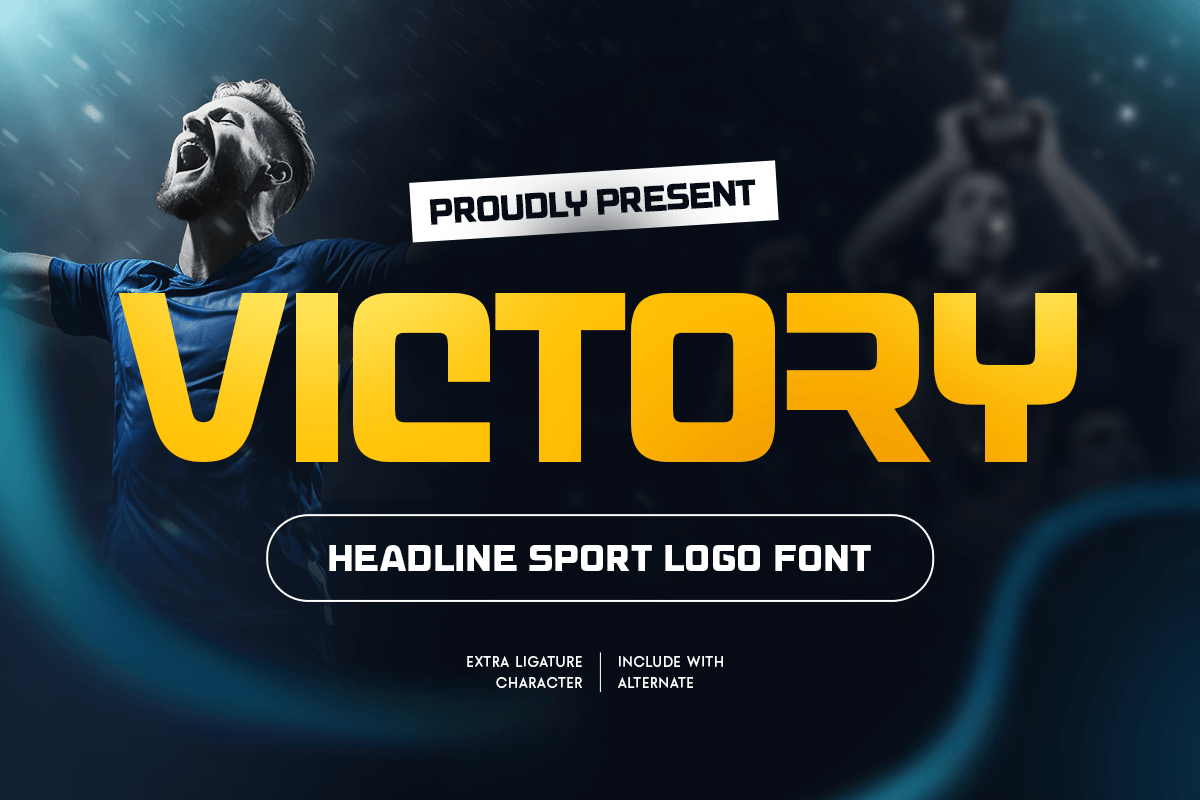
Victory
-Headline Sport Logo Font
Victory - Headline Sport Logo Font
VICTORY is a headline sport logo font built to deliver power, speed, and competitive confidence. With bold letterforms and an athletic presence, this typeface creates a strong visual impact that feels energetic, modern, and ready for the arena. Whether you’re designing for football, basketball, MMA, motorsport, fitness, or esports, VICTORY gives your visuals a championship-ready tone that looks loud, sharp, and unforgettable.
Inspiration Behind VICTORY
VICTORY is inspired by stadium energy, competitive sports culture, and modern athletic branding. The design focuses on bold presence and strong readability—built to look powerful on posters, merchs, scoreboards, and team identity systems. Designed for sports branding and high-impact typography, VICTORY works perfectly for team logos, tournament posters, matchday graphics, poster designs, social media promotions, and bold headline layouts. Its strong structure keeps text readable while amplifying intensity across both print and digital formats.
VICTORY Font Features
• Bold sport letterforms built for headlines and logo design
• Strong impact with clear readability at display sizes
• OpenType features for polished sports typography
• Team logos and athletic brand identities
• Tournament posters, event banners, and match graphics
• Sport event, merch, accessories and sports packaging
• Esports branding, gaming squads, and streaming visuals
• Social media promos and high-energy advertising
Make every headline feel like a win with VICTORY - crafted for sport logos and high-impact champion branding. 🏆🔥